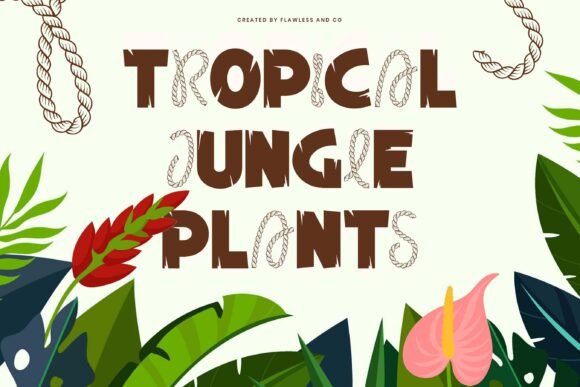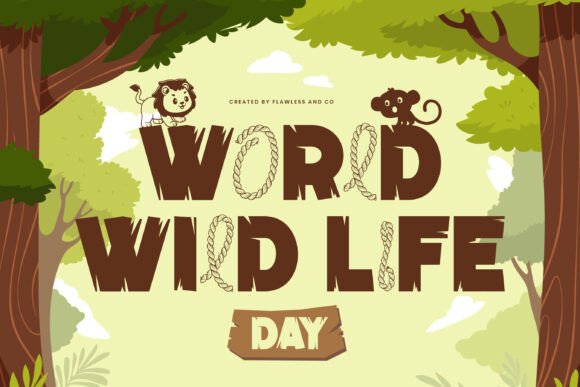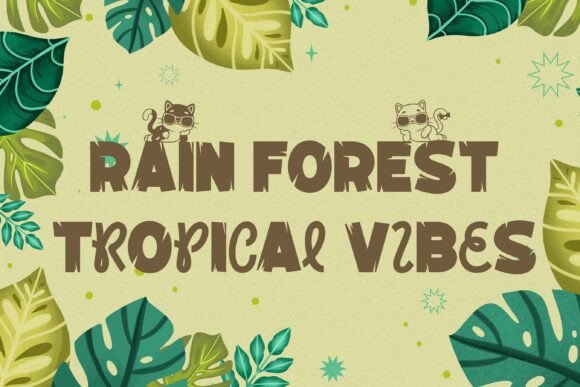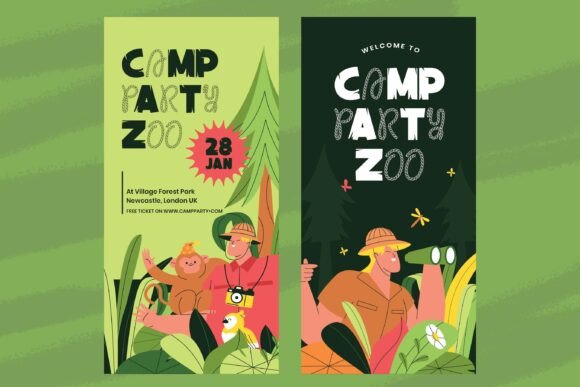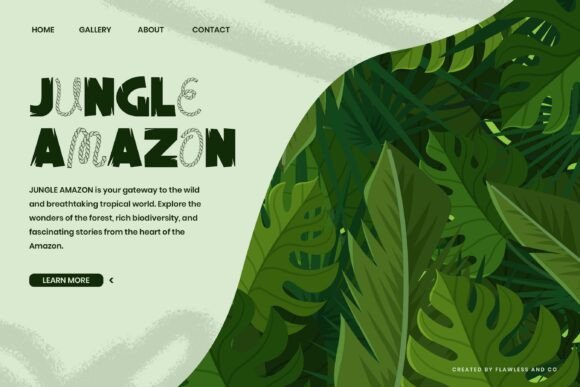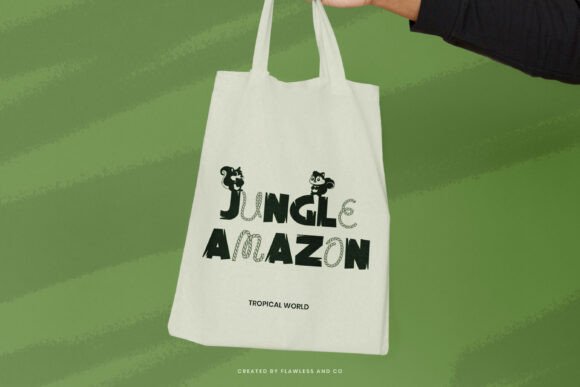
Introduction to Jungle Roots Font
Imagine you’re on a mission to create a poster for your kid’s jungle-themed birthday party. You’re brainstorming ideas, flipping through design resources, and searching for the perfect font to capture the wild spirit of the jungle. Suddenly, you stumble upon Jungle Roots Font, and your creative juices start flowing. This hand-crafted display font is a game-changer for designers looking for a unique and high-quality design resource.
Jungle Roots Font is a treasure trove of creative possibilities, perfect for kids’ projects, nature campaigns, and playful branding. With its bold shapes, organic edges, and rope-style letters, this font is sure to bring a touch of wilderness to any design. Whether you’re working on a free download project or designing a creative merchandise item, Jungle Roots Font is a valuable addition to your design arsenal.
Key Features of Jungle Roots Font
- Unique, hand-drawn design inspired by the natural world, perfect for creative projects and design resources.
- Features a bold, expressive style with intricate details, ideal for adding a touch of personality to designs and creative projects.
- Perfect for use in graphic design, digital art, and other creative projects that require a unique, natural touch.
Honest Review: Jungle Roots Font
I recently came across the Jungle Roots Font while searching for a unique design resource to add some personality to a creative project. I must say, it’s been a game-changer!
What works well: ✨ The font’s high quality and detailed design make it perfect for projects that require a natural, earthy feel. The font’s versatility also makes it suitable for various creative projects, from branding to packaging design.
- High-quality design with intricate details
- Perfect for creative projects requiring a natural, earthy feel
What doesn’t work well: ⚠️ While the font is incredibly detailed, it can be overwhelming for some designs. Additionally, the font’s size and complexity may require some adjustments to ensure it looks its best.
Overall impression: The Jungle Roots Font is a fantastic addition to any designer’s toolkit. With its unique design and high-quality construction, it’s perfect for creative projects that require a touch of the wild. I highly recommend downloading it for free – it’s a design resource you won’t regret using!
Common Use Cases for Jungle Roots Font
Jungle Roots Font is perfect for creative projects that require a high-quality, unique font. Some common use cases include:
- Marketing materials and brochures